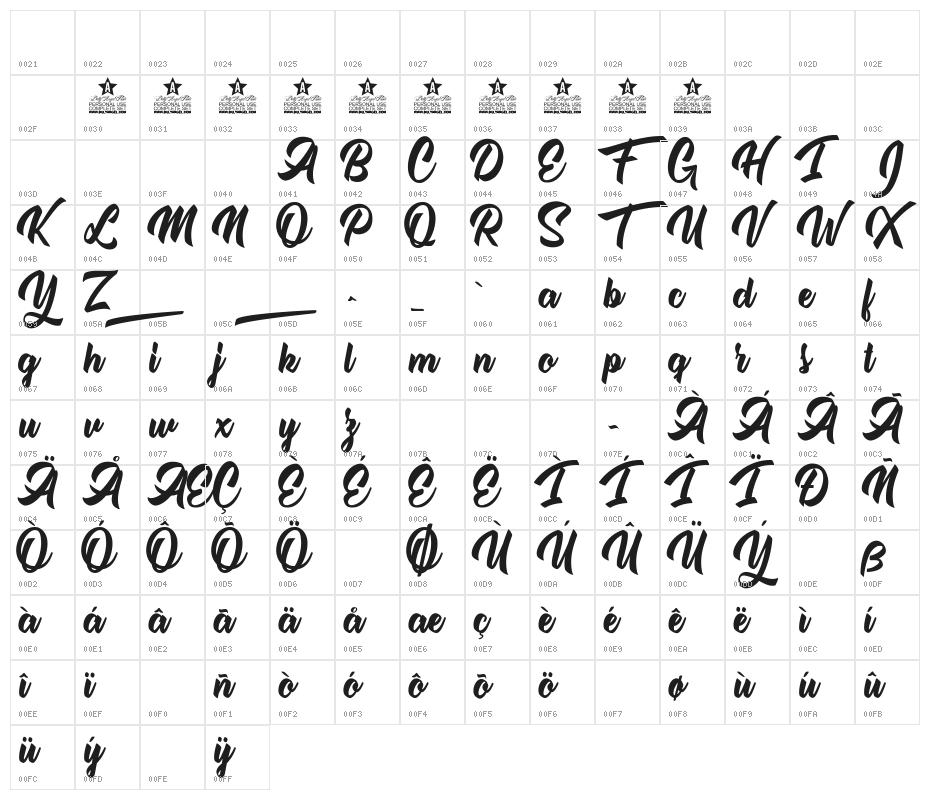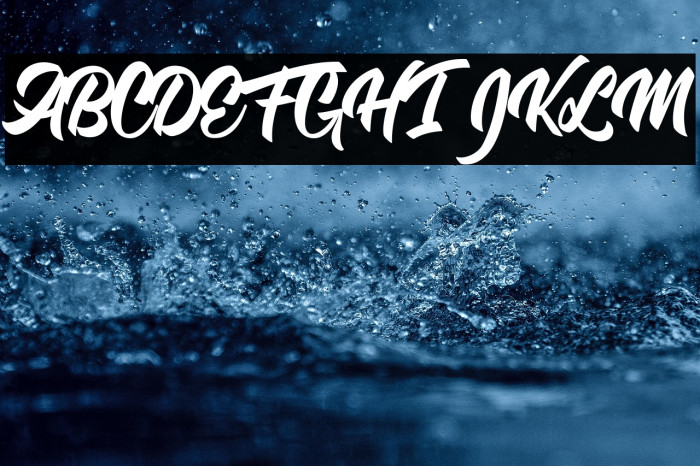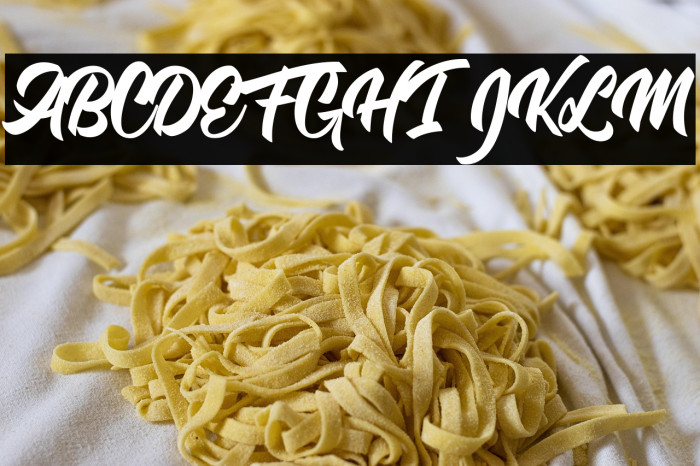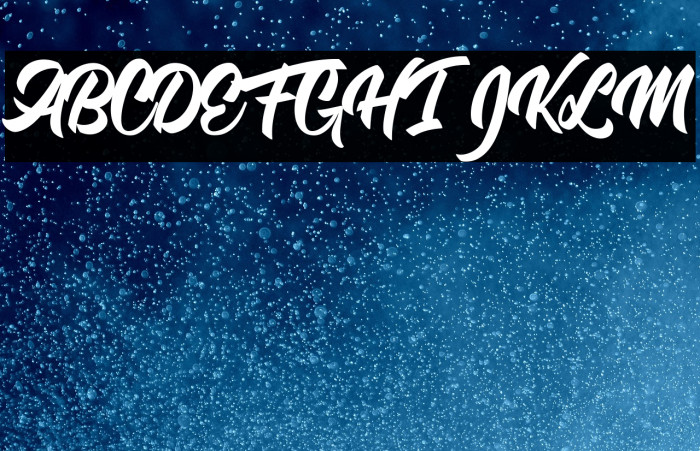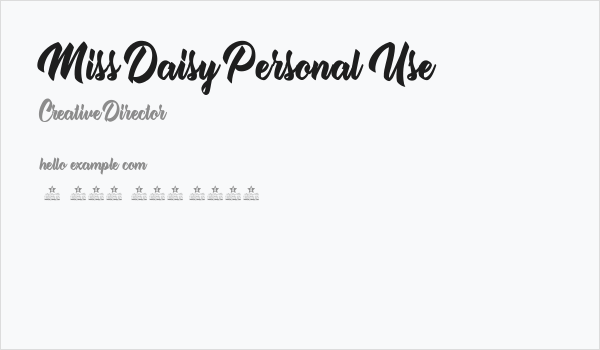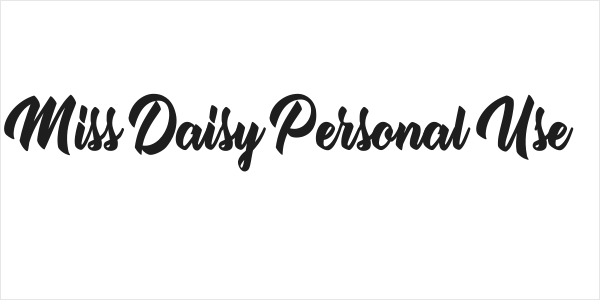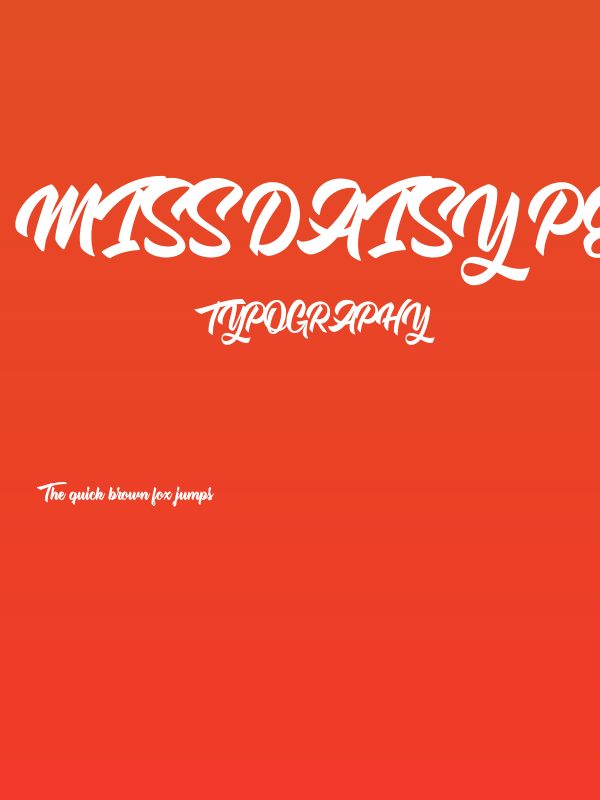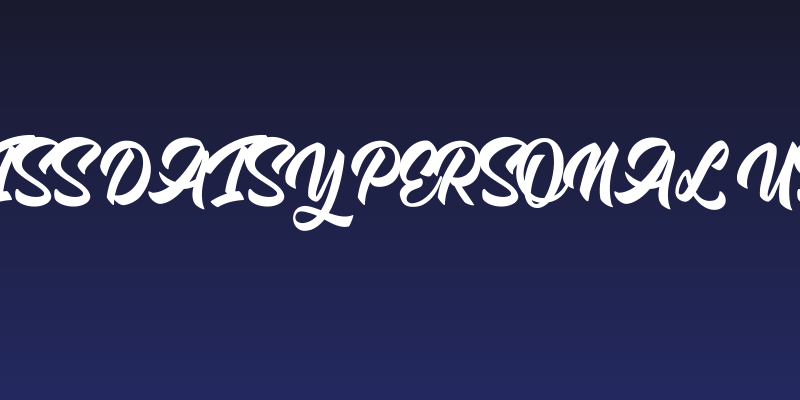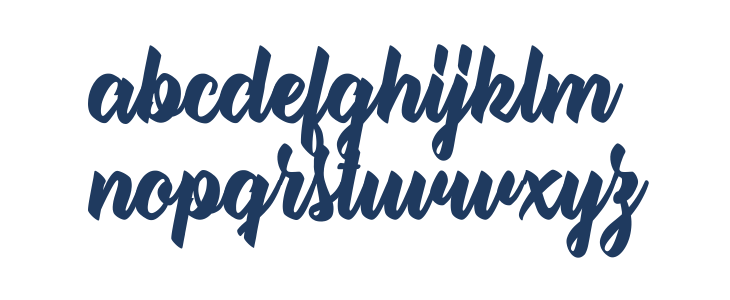
Miss Daisy Personal Use Font
Miss Daisy Personal Use Description
This font features a bold and expressive script style with a flowing, cursive design. The characters are interconnected, creating a seamless and elegant appearance. The uppercase letters are slightly larger and more ornate, while the lowercase letters maintain a consistent flow. The font has a strong presence, making it suitable for attention-grabbing designs. The strokes are thick and consistent, providing a sense of stability and confidence. The overall look is both modern and classic, with a touch of sophistication.